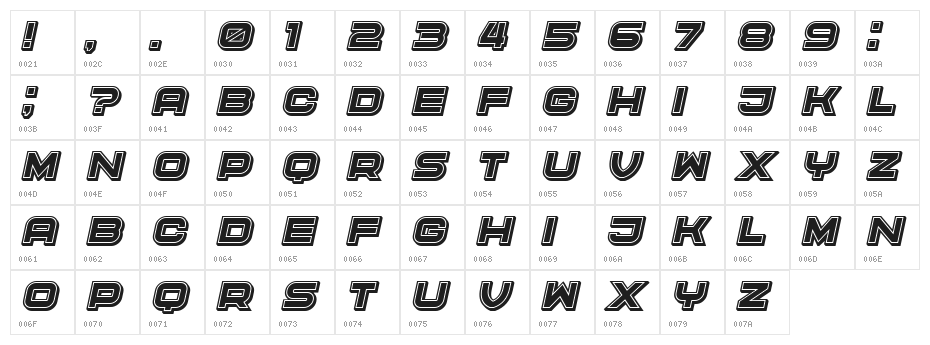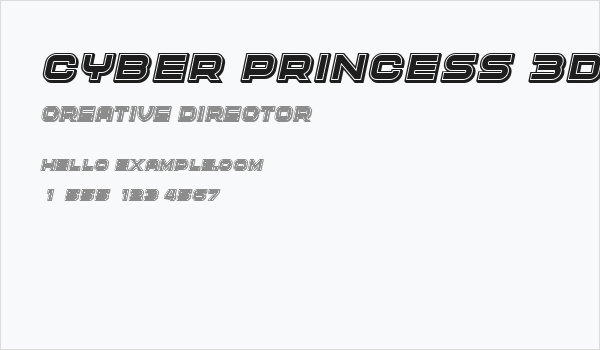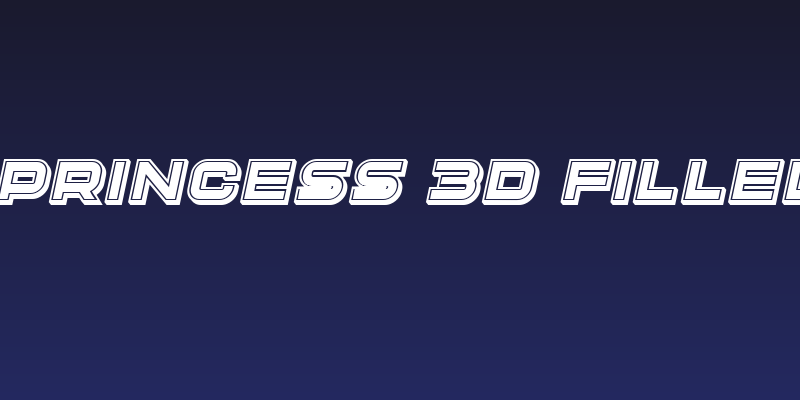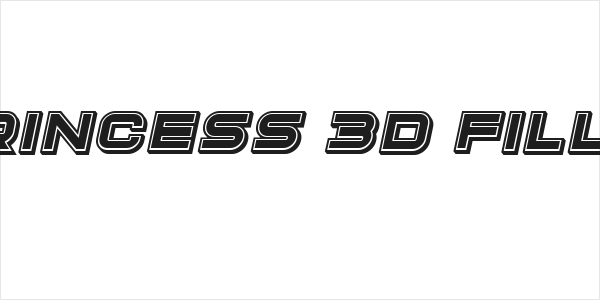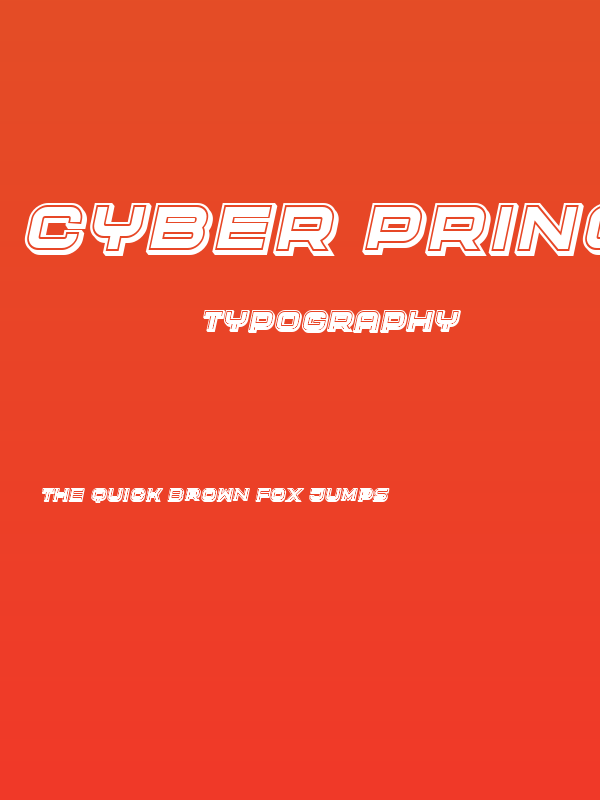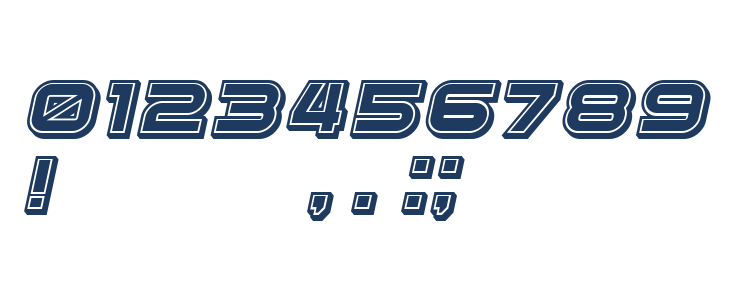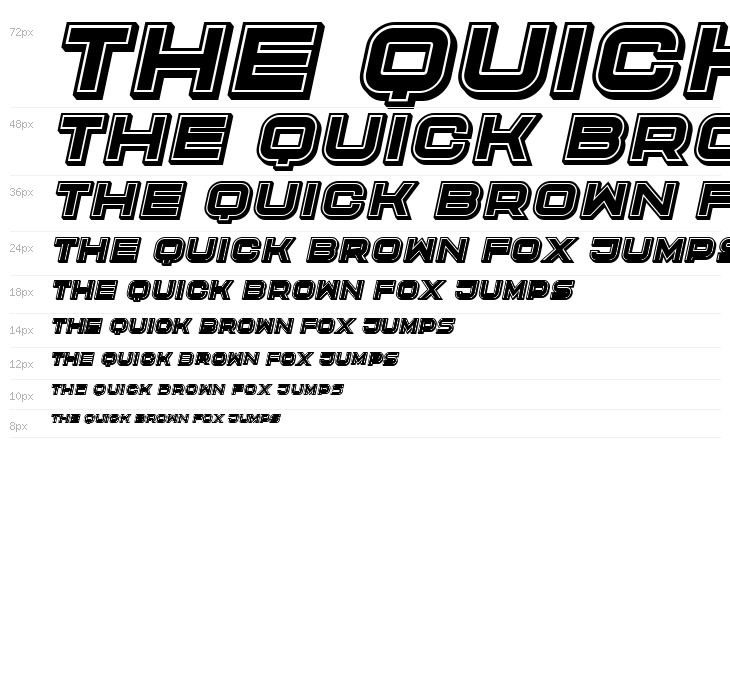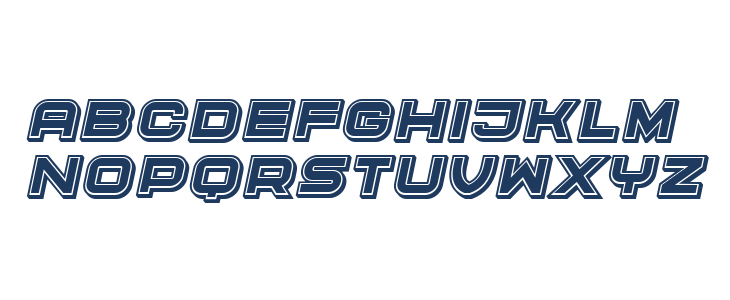
Cyber Princess 3D Filled Italic Font
Cyber Princess 3D Filled Italic Description
This font features a bold, futuristic design with a 3D effect that gives each character a sense of depth and dimension. The letters are filled and italicized, creating a dynamic and energetic appearance. The geometric shapes and clean lines contribute to a modern aesthetic, while the bold outlines enhance readability. The font maintains a consistent style across uppercase, lowercase, and numeric characters, with special characters also following the same design principles. This font is ideal for projects that require a strong, impactful visual presence.
| Proposed Projects | Ideal for sci-fi themed designs, video game titles, tech branding, and digital artwork. |